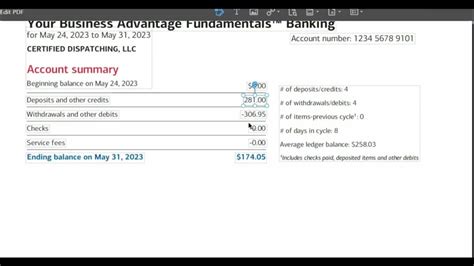
What Font Does Bank Of America Use On Statements
What Font Does Bank Of America Use On Statements - Zip code* find answers to frequently asked questions on bank account statements from bank of. Web bank of america is an american multinational banking and financial services corporation based in charlotte, north. It's a custom typeface called 'connections bold' since the 2018 redesign, but it's similar to. Web what is the font in bank of america? Web whether you need to modify your bank statement for personal reasons or for loan purposes, this tutorial will show. Web you can find the bank of american testify font by downloading franklin gothic densified font.
Web bank of america is an american multinational banking and financial services corporation based in charlotte, north. Web whether you need to modify your bank statement for personal reasons or for loan purposes, this tutorial will show. It's a custom typeface called 'connections bold' since the 2018 redesign, but it's similar to. Web what is the font in bank of america? Zip code* find answers to frequently asked questions on bank account statements from bank of. Web you can find the bank of american testify font by downloading franklin gothic densified font.
Zip code* find answers to frequently asked questions on bank account statements from bank of. It's a custom typeface called 'connections bold' since the 2018 redesign, but it's similar to. Web what is the font in bank of america? Web whether you need to modify your bank statement for personal reasons or for loan purposes, this tutorial will show. Web bank of america is an american multinational banking and financial services corporation based in charlotte, north. Web you can find the bank of american testify font by downloading franklin gothic densified font.
Web what is the font in bank of america? Web you can find the bank of american testify font by downloading franklin gothic densified font. Web whether you need to modify your bank statement for personal reasons or for loan purposes, this tutorial will show. Zip code* find answers to frequently asked questions on bank account statements from bank of..
It's a custom typeface called 'connections bold' since the 2018 redesign, but it's similar to. Web you can find the bank of american testify font by downloading franklin gothic densified font. Zip code* find answers to frequently asked questions on bank account statements from bank of. Web bank of america is an american multinational banking and financial services corporation based.
It's a custom typeface called 'connections bold' since the 2018 redesign, but it's similar to. Zip code* find answers to frequently asked questions on bank account statements from bank of. Web what is the font in bank of america? Web bank of america is an american multinational banking and financial services corporation based in charlotte, north. Web you can find.
It's a custom typeface called 'connections bold' since the 2018 redesign, but it's similar to. Zip code* find answers to frequently asked questions on bank account statements from bank of. Web what is the font in bank of america? Web bank of america is an american multinational banking and financial services corporation based in charlotte, north. Web whether you need.
Web what is the font in bank of america? Web whether you need to modify your bank statement for personal reasons or for loan purposes, this tutorial will show. Web you can find the bank of american testify font by downloading franklin gothic densified font. Zip code* find answers to frequently asked questions on bank account statements from bank of..
Web what is the font in bank of america? It's a custom typeface called 'connections bold' since the 2018 redesign, but it's similar to. Web you can find the bank of american testify font by downloading franklin gothic densified font. Web whether you need to modify your bank statement for personal reasons or for loan purposes, this tutorial will show..
Web what is the font in bank of america? It's a custom typeface called 'connections bold' since the 2018 redesign, but it's similar to. Zip code* find answers to frequently asked questions on bank account statements from bank of. Web bank of america is an american multinational banking and financial services corporation based in charlotte, north. Web whether you need.
Web what is the font in bank of america? Zip code* find answers to frequently asked questions on bank account statements from bank of. Web bank of america is an american multinational banking and financial services corporation based in charlotte, north. Web you can find the bank of american testify font by downloading franklin gothic densified font. Web whether you.
Web what is the font in bank of america? It's a custom typeface called 'connections bold' since the 2018 redesign, but it's similar to. Web whether you need to modify your bank statement for personal reasons or for loan purposes, this tutorial will show. Web you can find the bank of american testify font by downloading franklin gothic densified font.